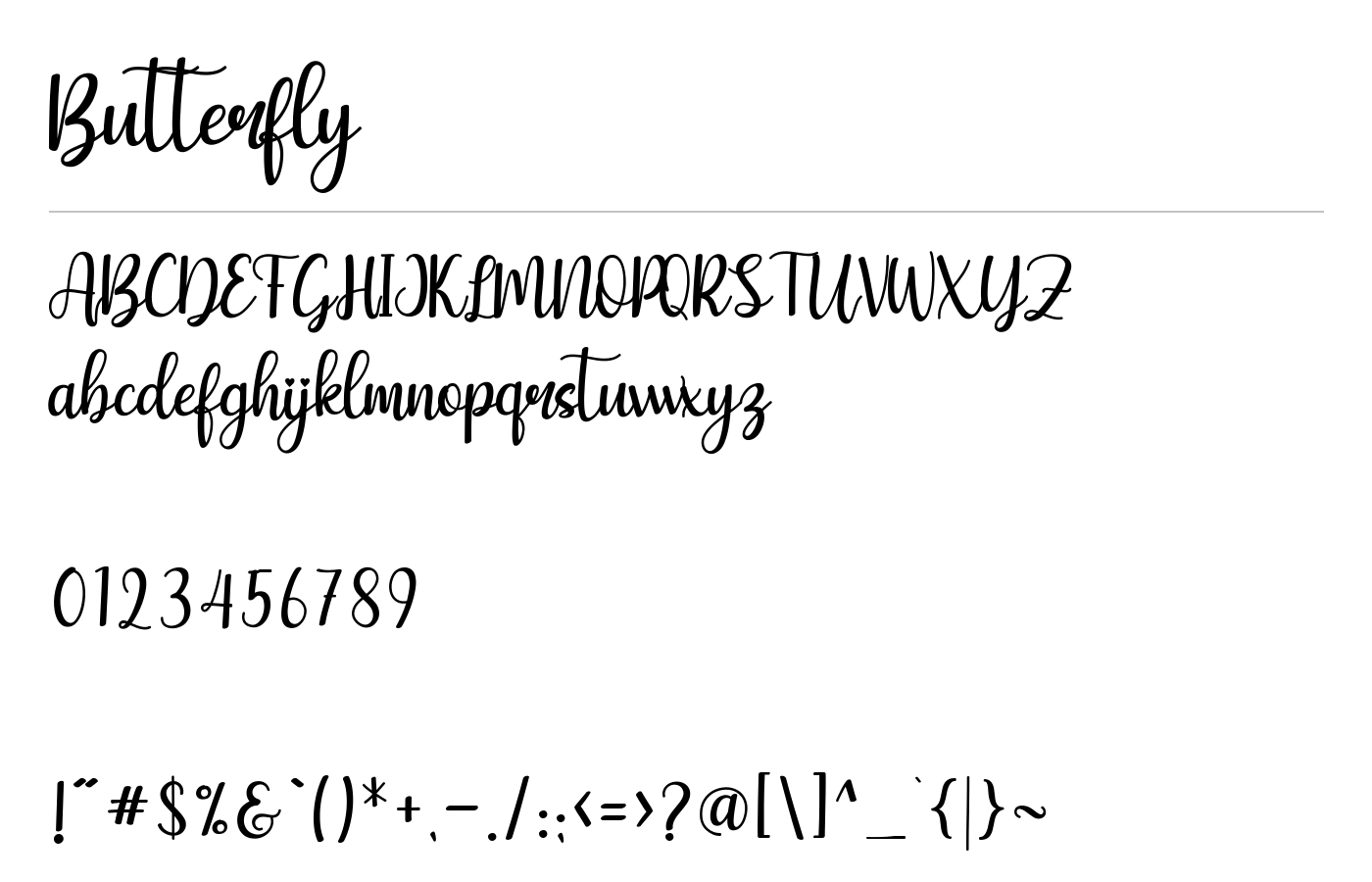
Butterfly Font is a charming, handwritten script typeface with a casual and elegant feel. Its tall, flowing letterforms feature smooth, rounded strokes and gentle curves that give it a friendly yet refined personality, perfect for creative and feminine designs. This font works beautifully for branding, invitations, and headlines where a personal and stylish touch is desired.
Butterfly Font
About Butterfly Font
| Font family | Butterfly Font |
| Designer | dianhaniff |